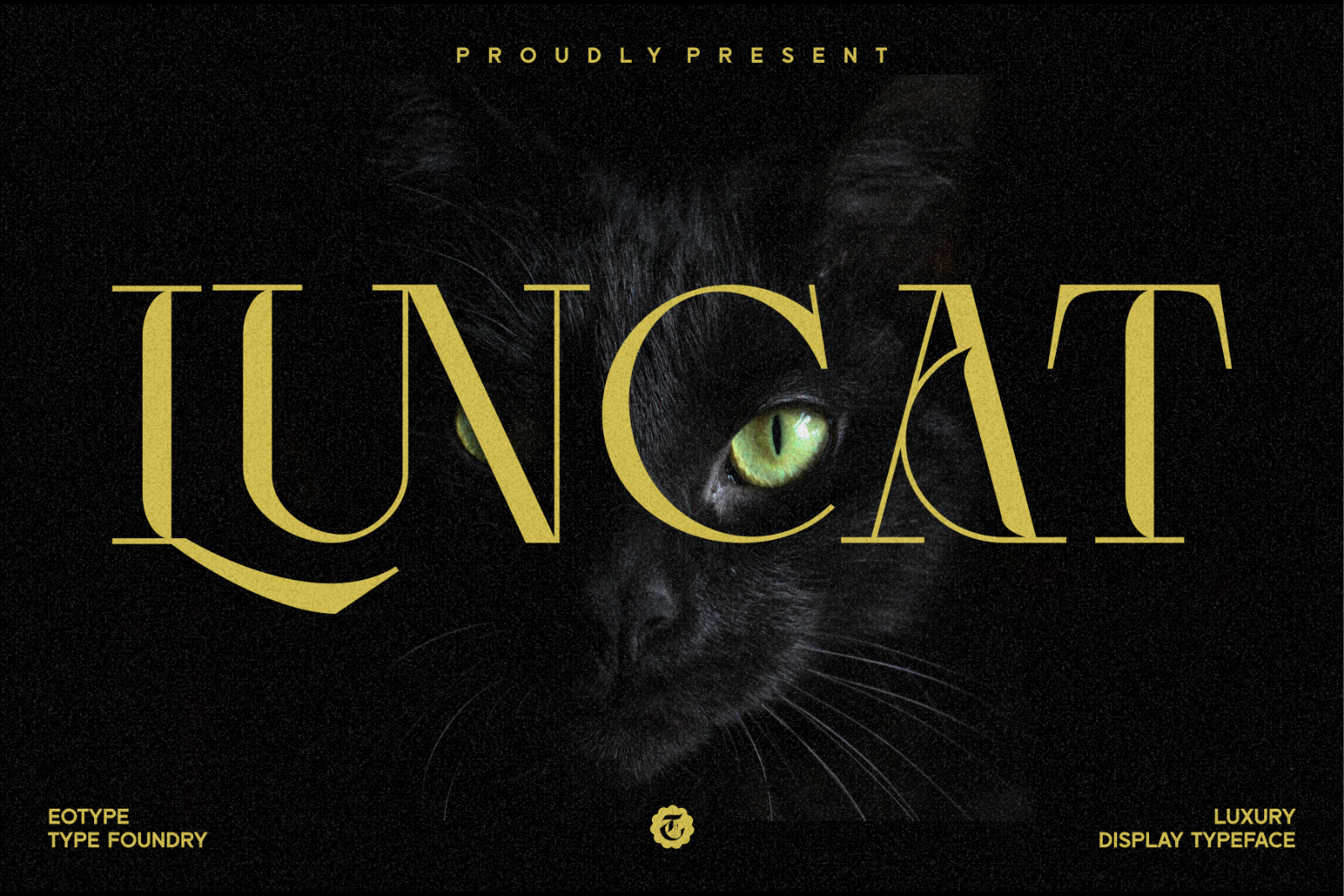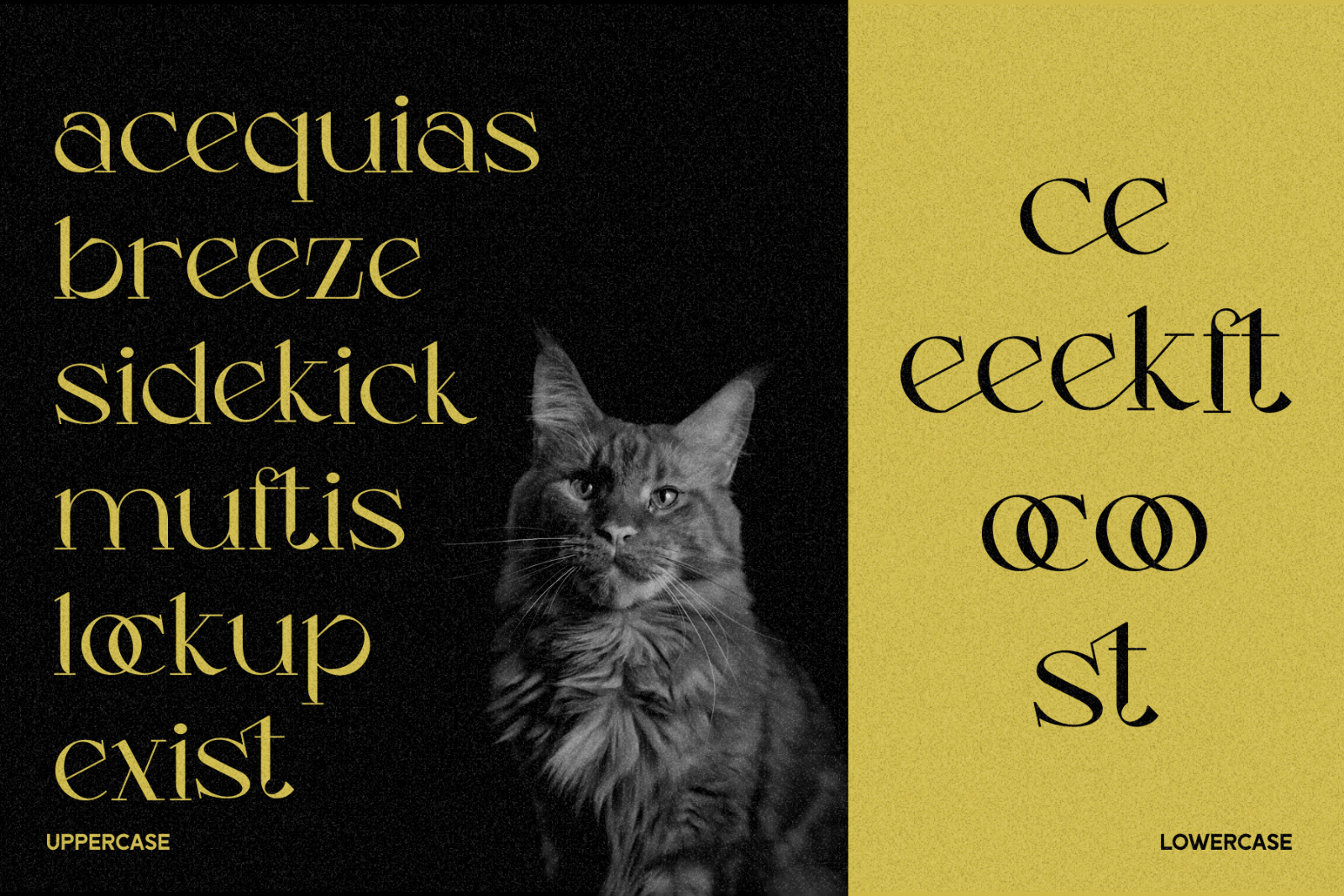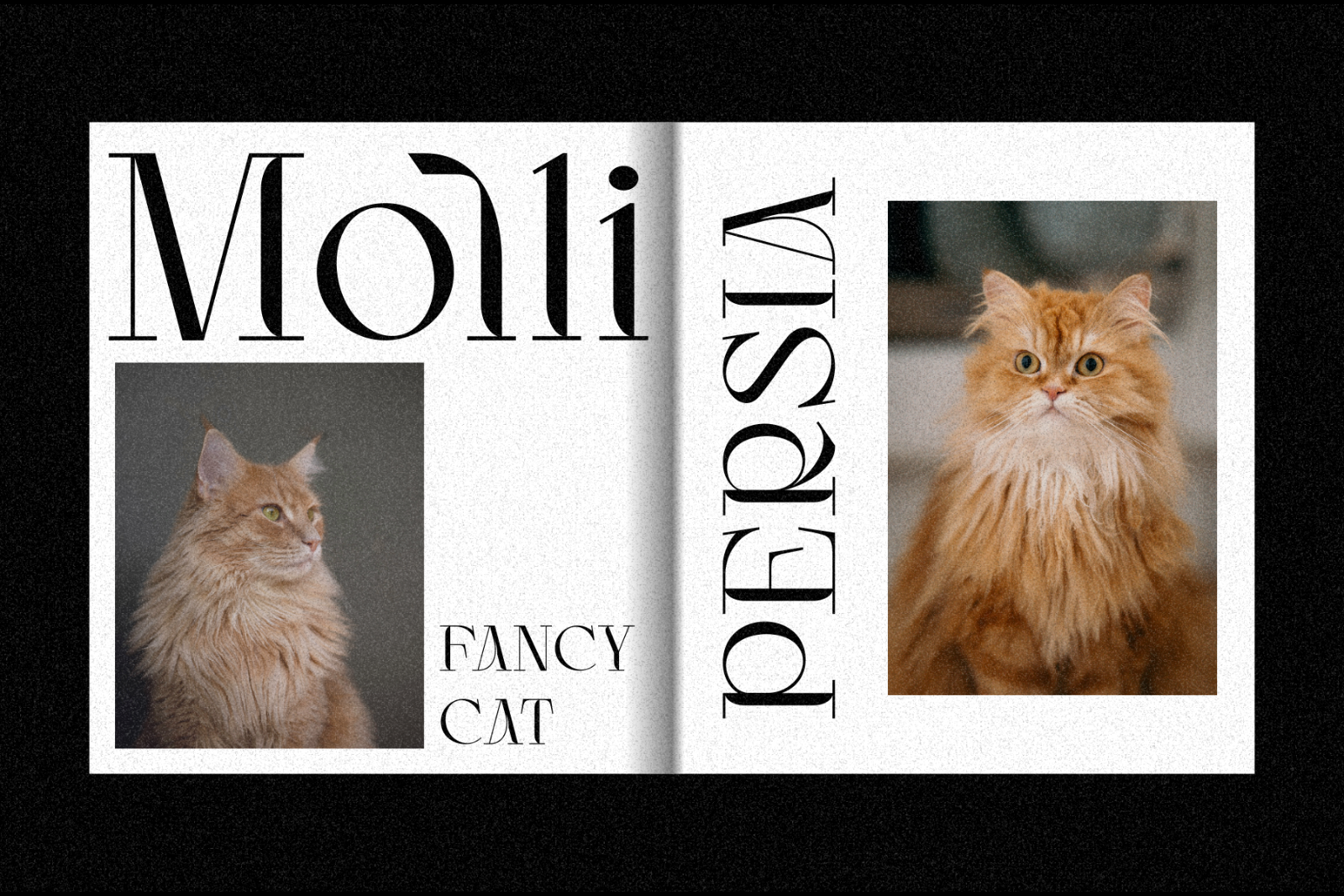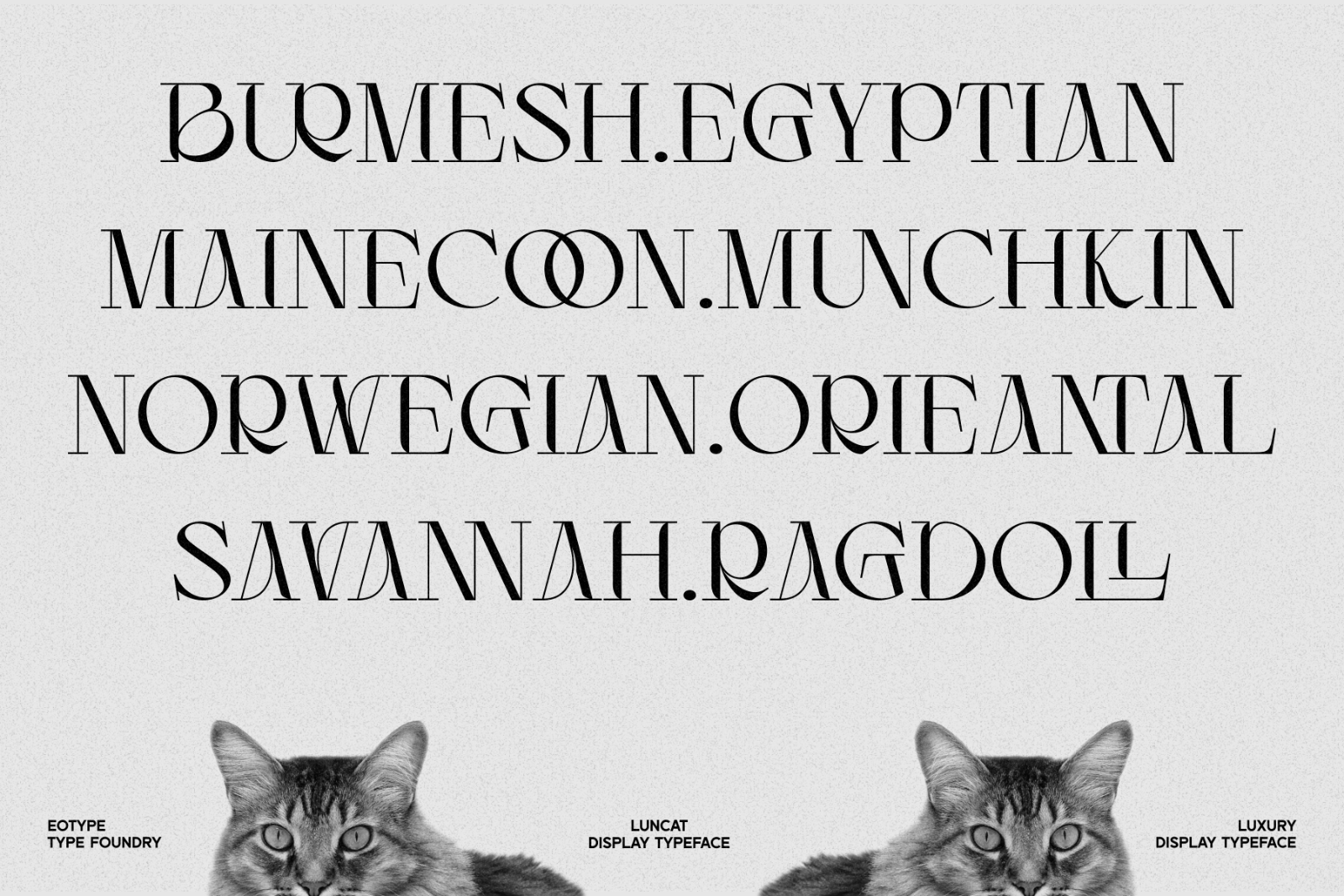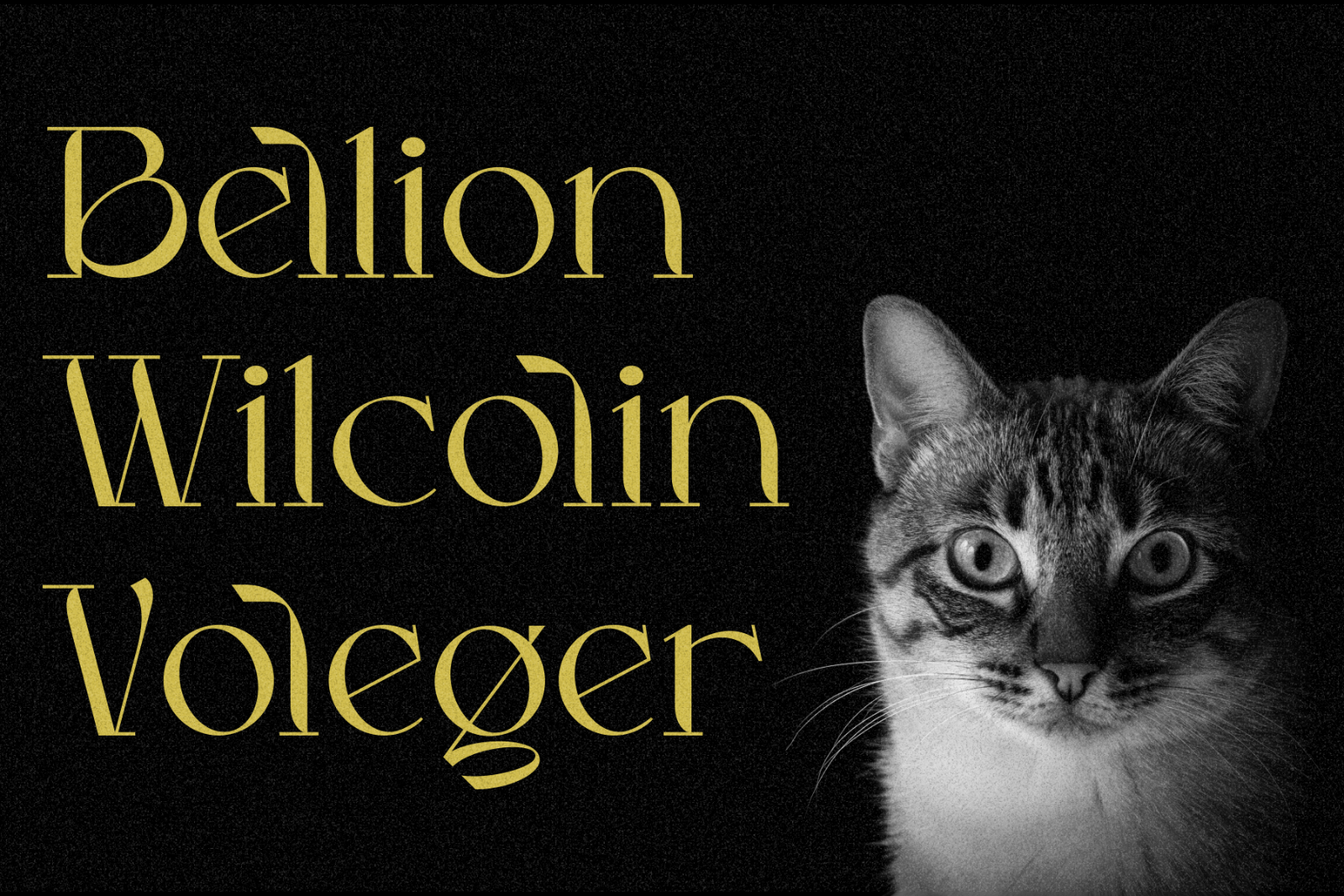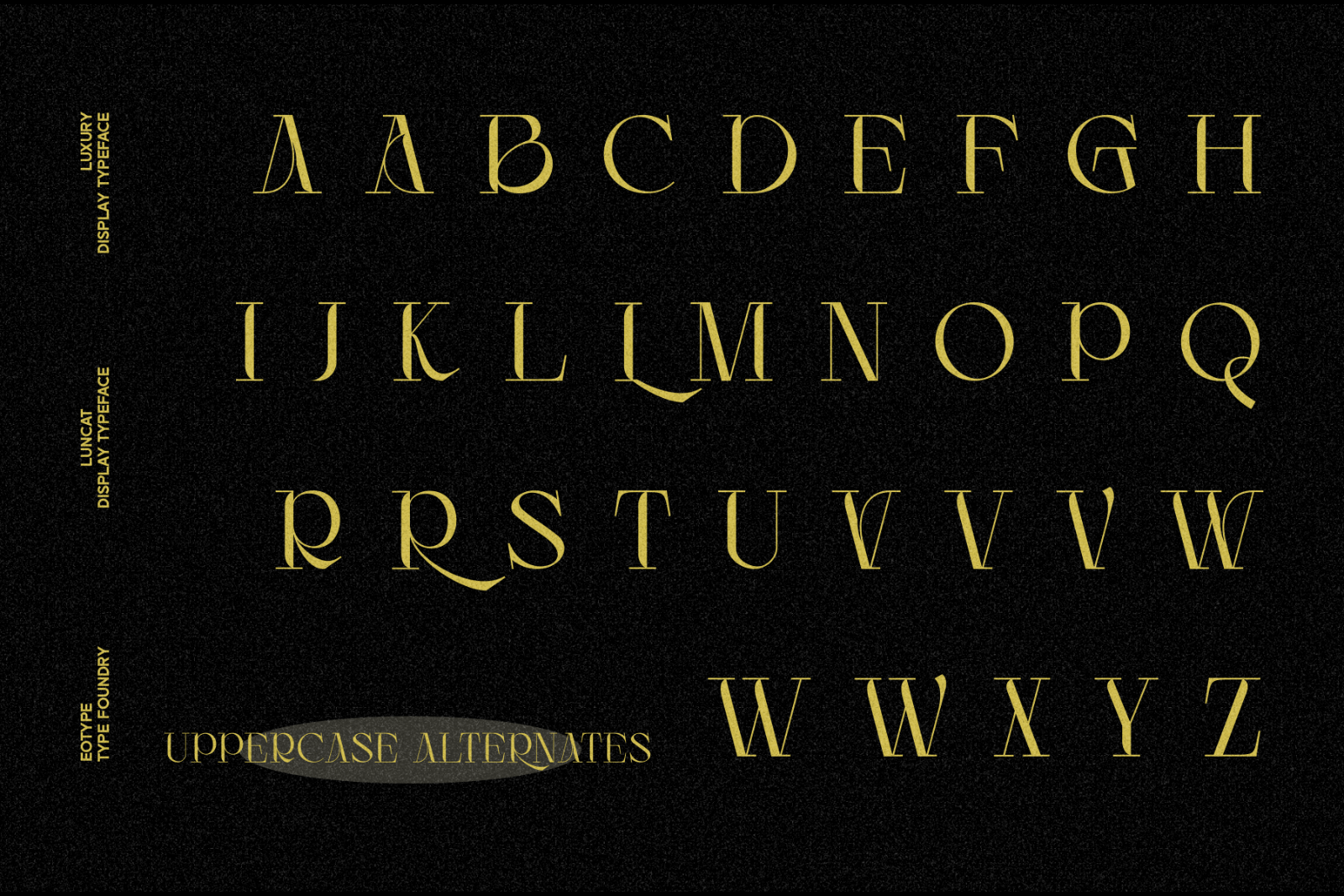
Luncat is a fancy modern serif font. Luncat is characterized by extreme contrast between thin and thick lines. You can use this font in modern vintage designs. This font is very suitable for various kinds of projects such as, brands, magazines, logos and more. There are alternative style and ligature features that make the typeface look more unique.